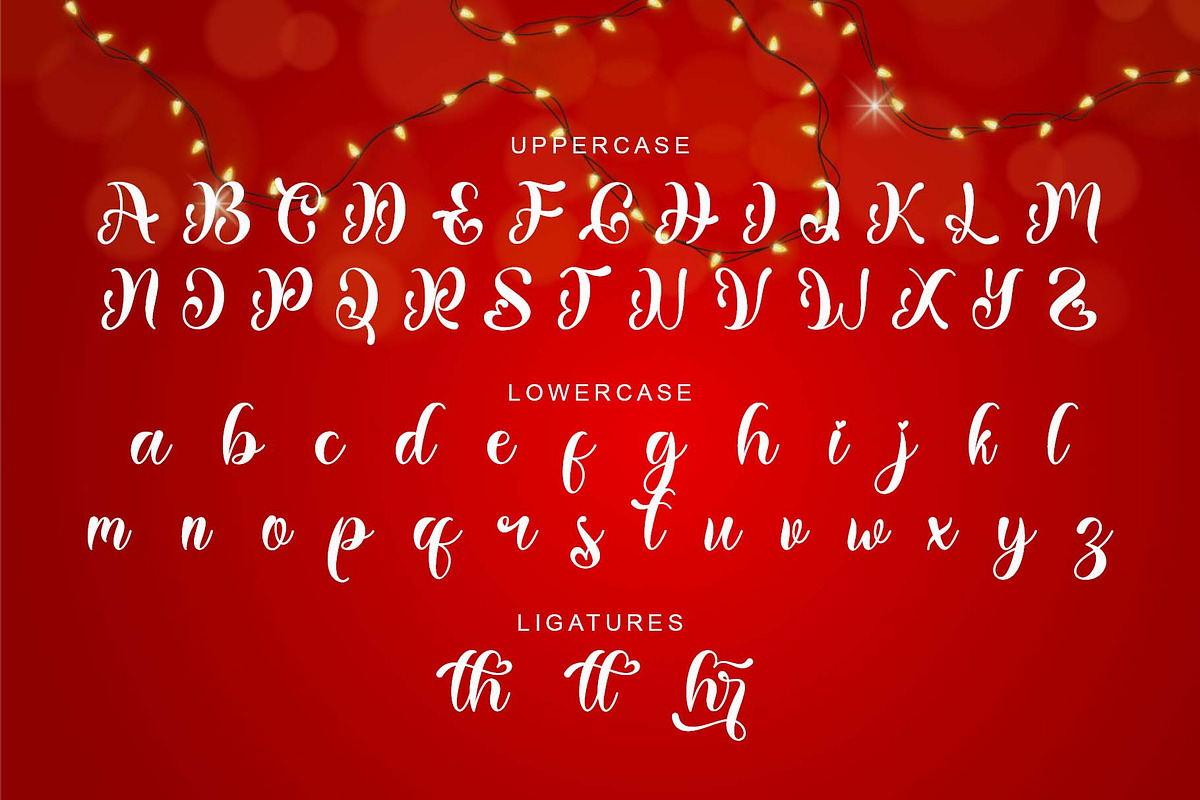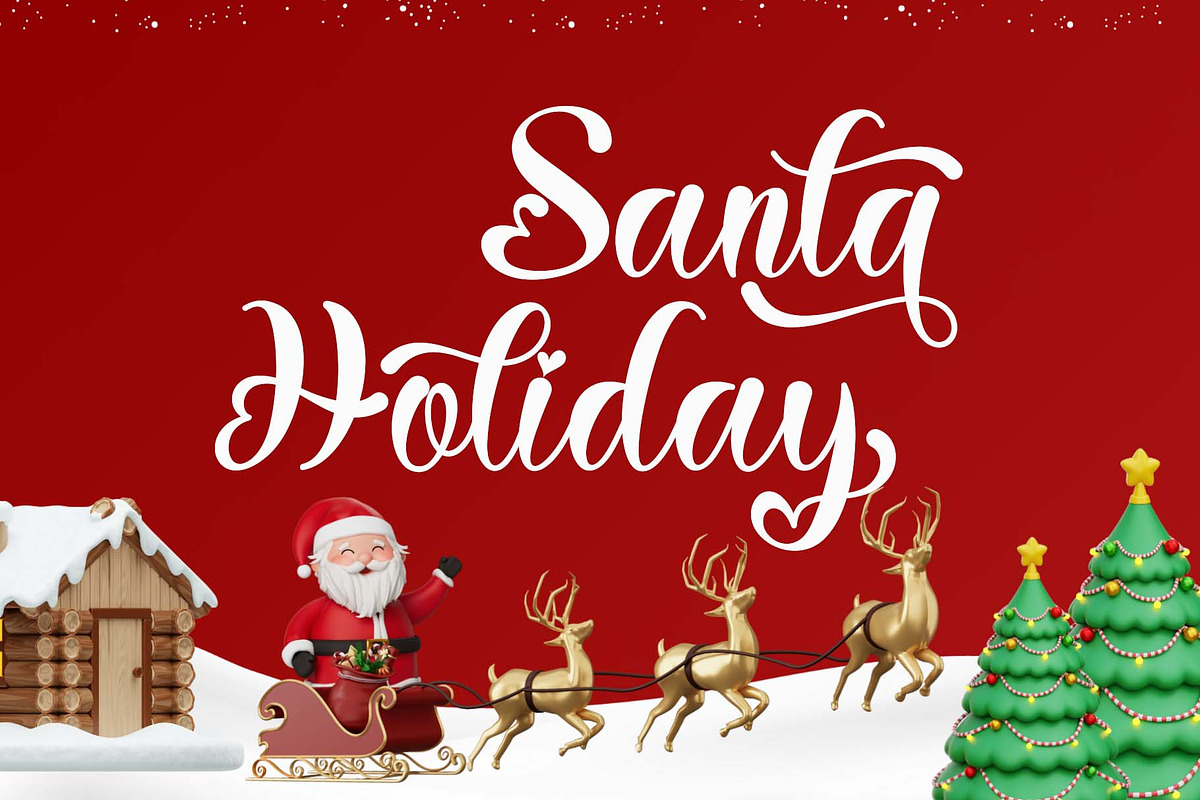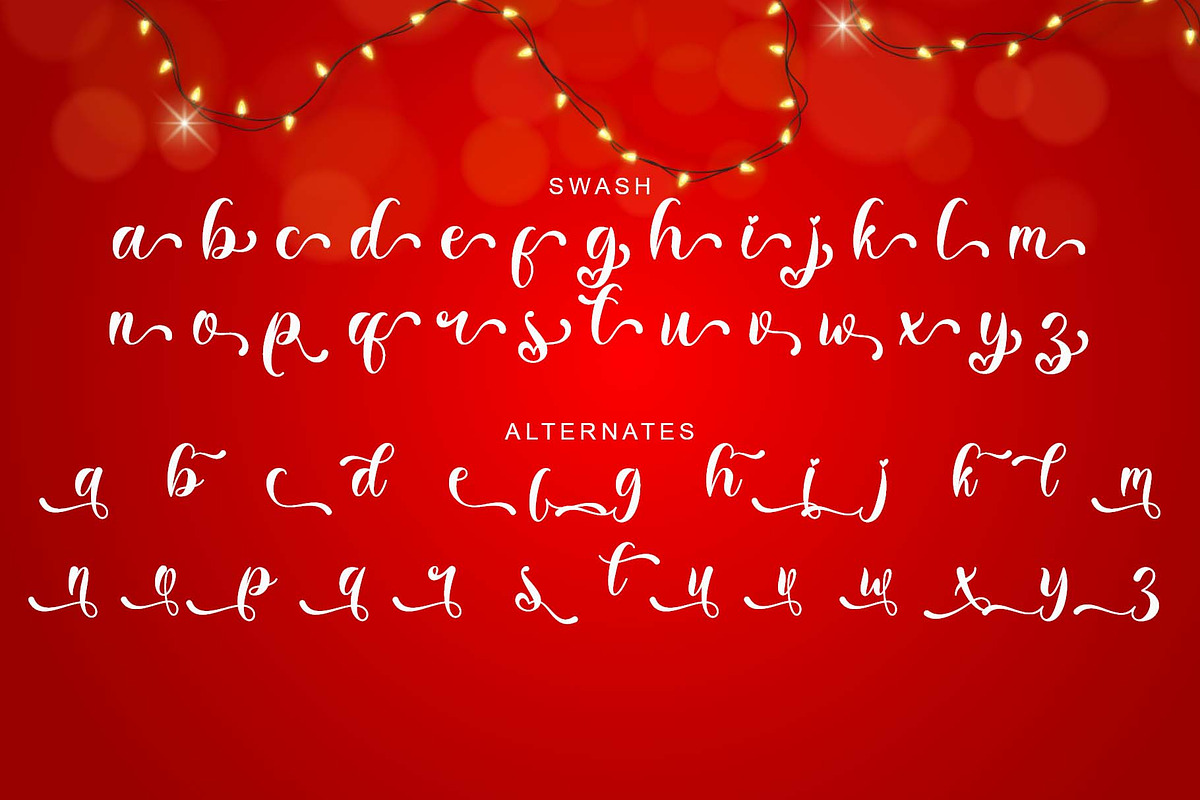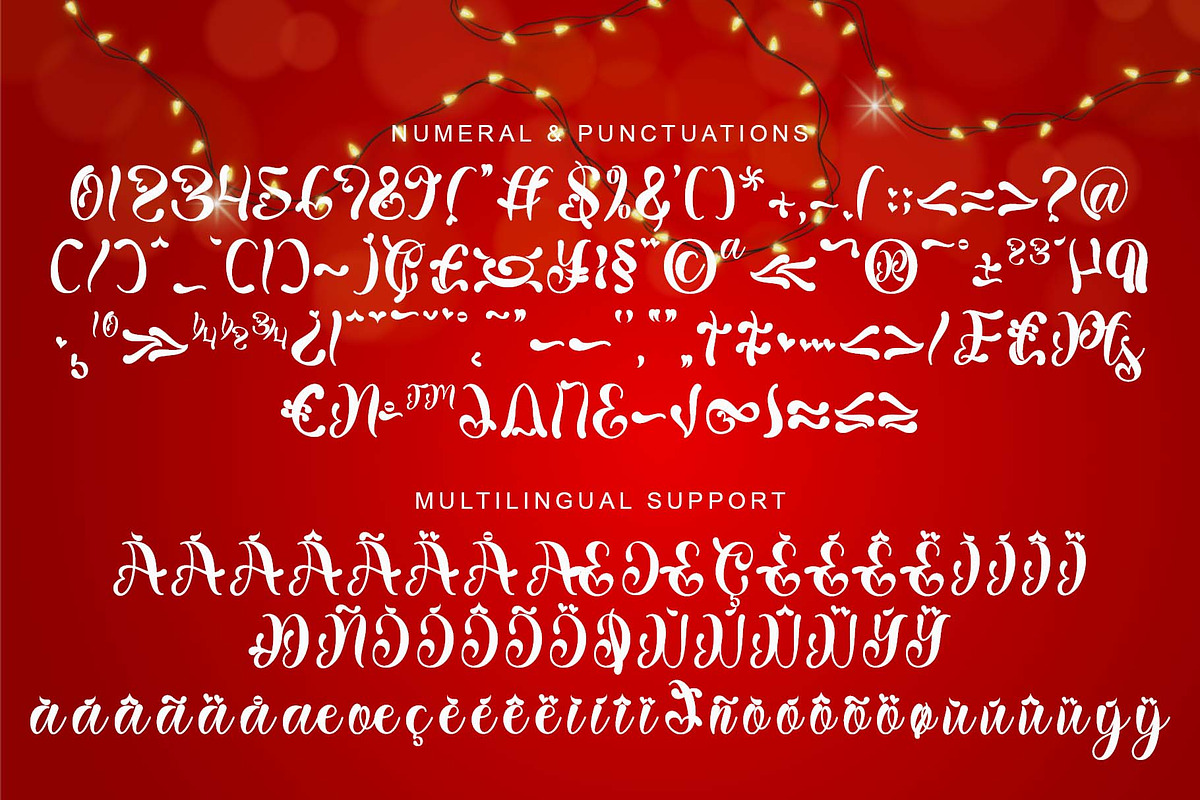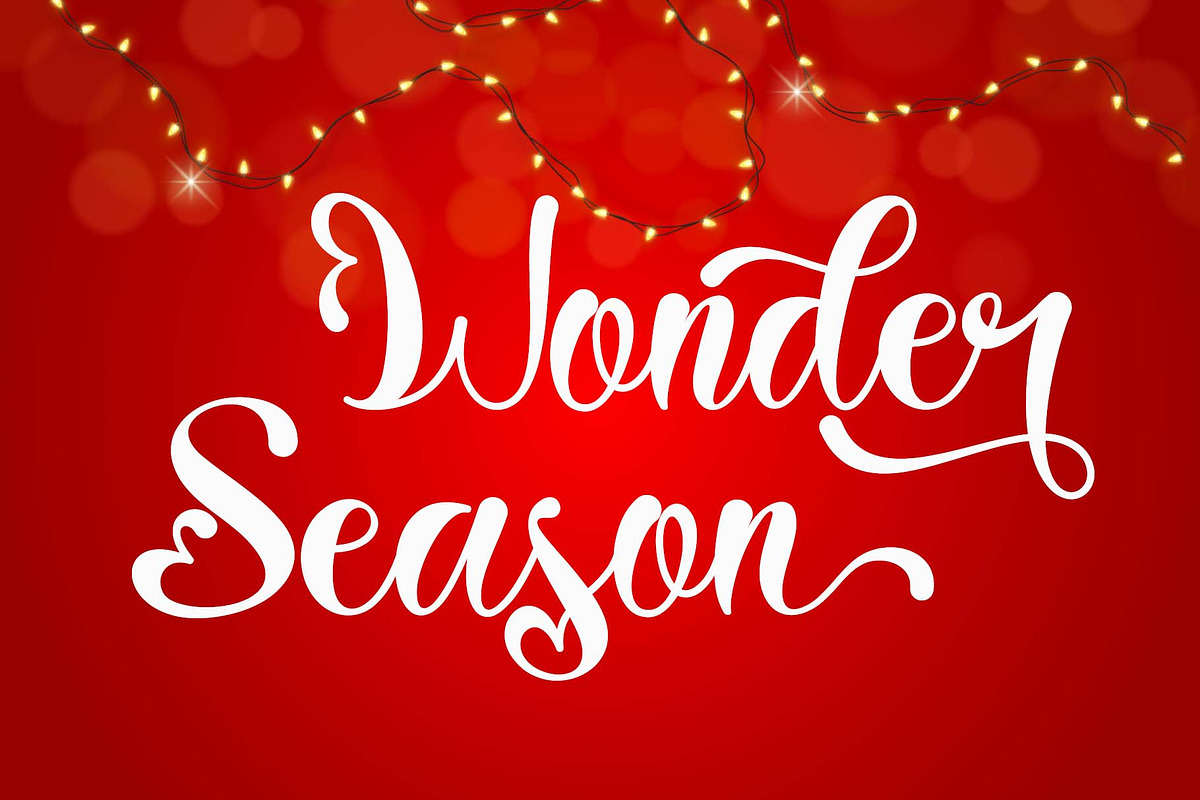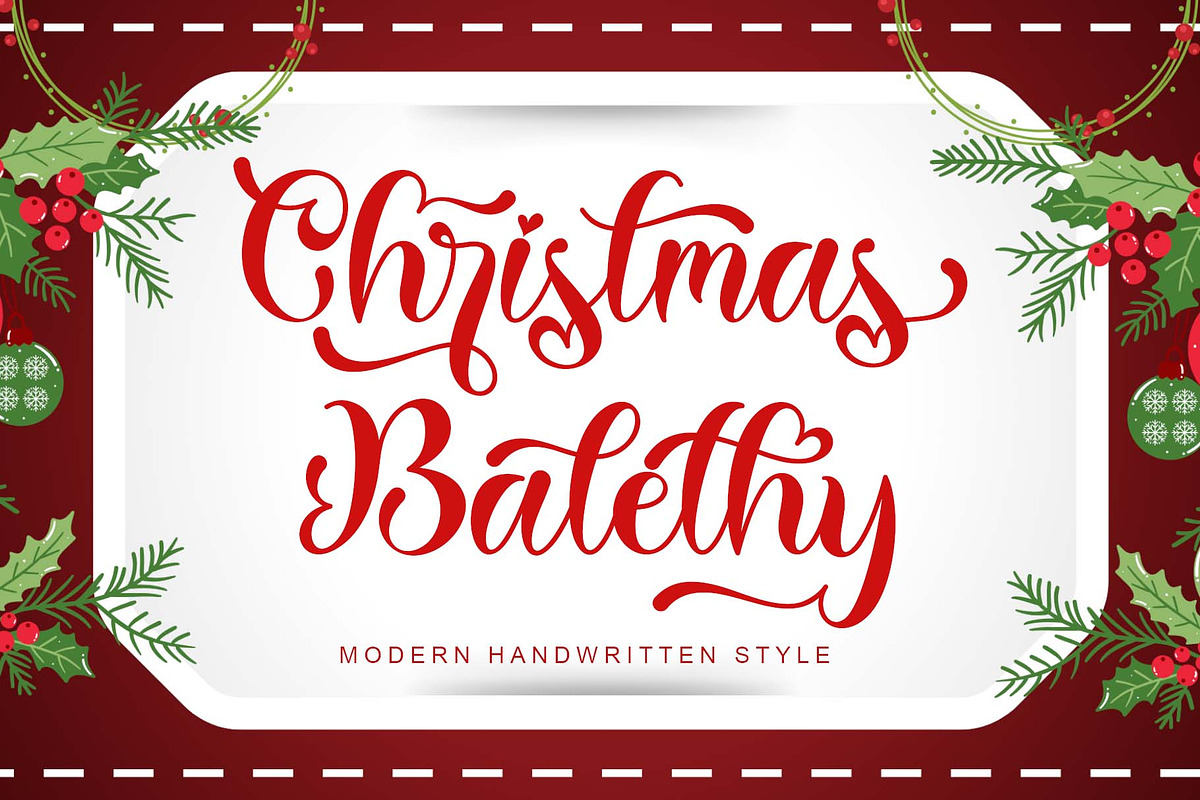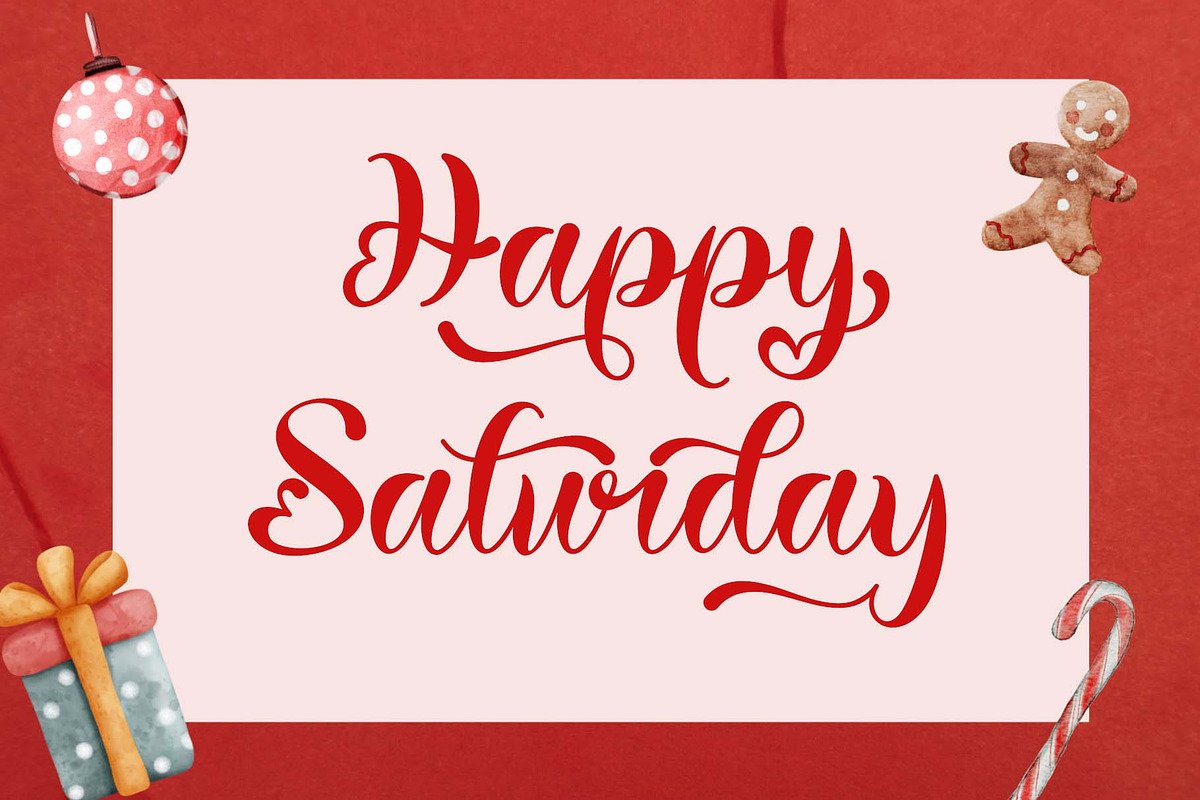
Christmas Balethy
"Christmas Balethy" is a unique and beautiful handwritten font. It features uppercase and lowercase letters, numerals, punctuations, multilingual support, ligatures, swashes, and alternates. It's perfect for Christmas, Halloween, back to school, teachers, Valentine's Day, invitations, and more.